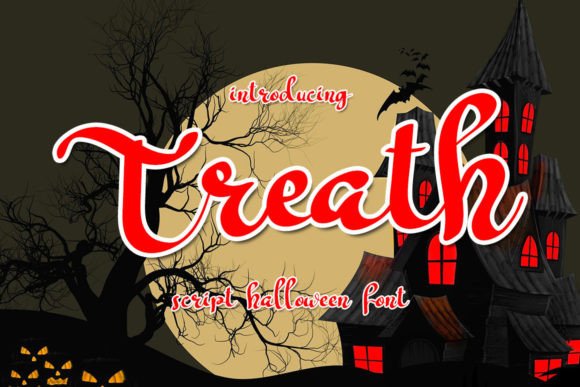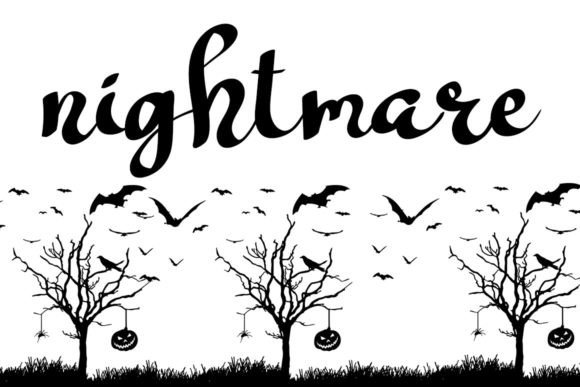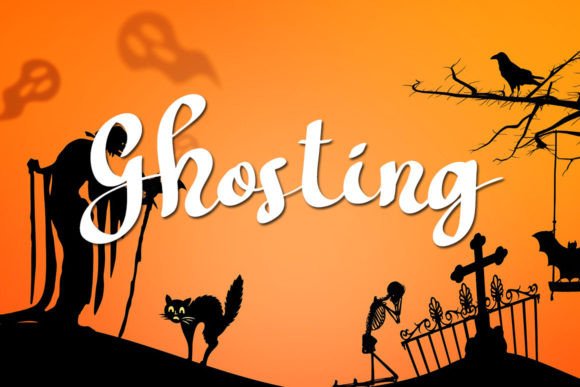
Treath Font
About Treath Font
“Treath” is a beautiful and fun handwritten font designed to bring a fresh, clean, and elegant touch to your projects. With its delightful and joyful appearance, this font is versatile and suitable for a wide range of applications, both formal and informal.
The fresh and clean qualities of “Treath” make it adaptable to various design contexts, allowing it to shine in a variety of projects. Whether you’re working on formal documents, creative designs, or more casual content, this font is crafted to enhance the overall aesthetic.
The elegant yet playful strokes of “Treath” add a touch of sophistication while maintaining a fun and joyful vibe. This balance makes it suitable for a diverse range of purposes, allowing you to infuse a positive and charming aspect into your designs.
Incorporating “Treath” into your projects can elevate the visual appeal and create a distinctive look. The font’s handwritten style adds a personal and authentic feel, making it a valuable choice for designers looking to connect with their audience.
In summary, “Treath” is a beautiful and fun handwritten font that brings a joyful and elegant vibe to your designs. Its versatility makes it suitable for a variety of projects, making it a valuable asset for designers seeking a font that adds a touch of positivity and charm to their creative endeavors.